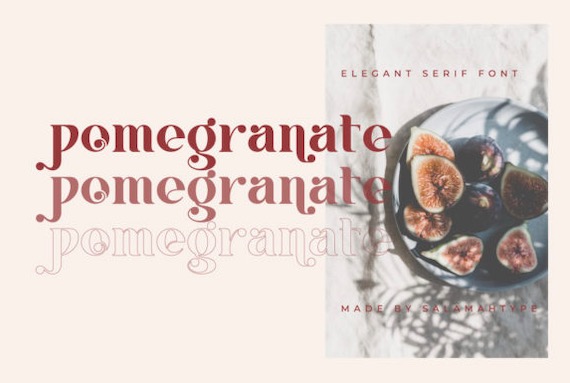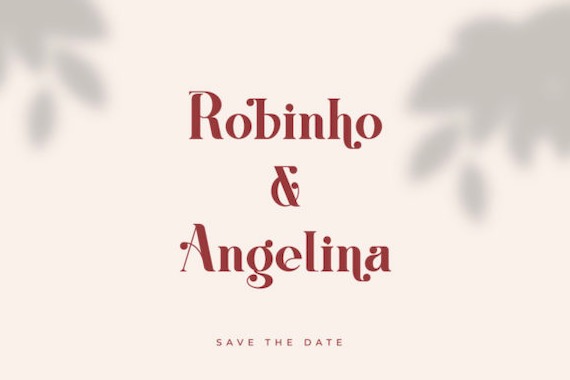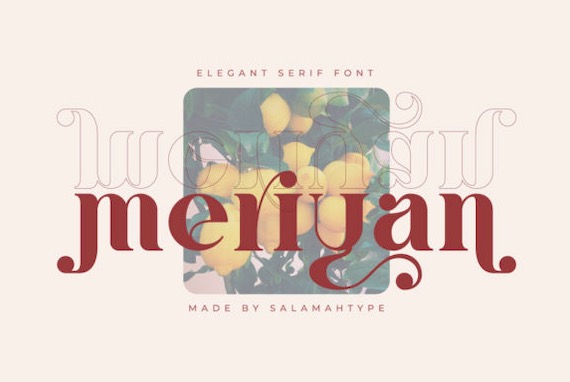
Meriyan is a masculine and modern serif font that was created and shared by Salamahtype. It’s PUA encoded, which means you can access all of the glyphs and swashes with ease. So, this basic font is very perfect for branding projects, logos, social media posts, advertisements, product packaging, product designs, labels, photography, watermarks, wedding invitations, and so much more. Add it to any of your creative designs, and it will grab everyone’s attention!
Meriyan Serif Font
Publisher: Salamahtype Studio